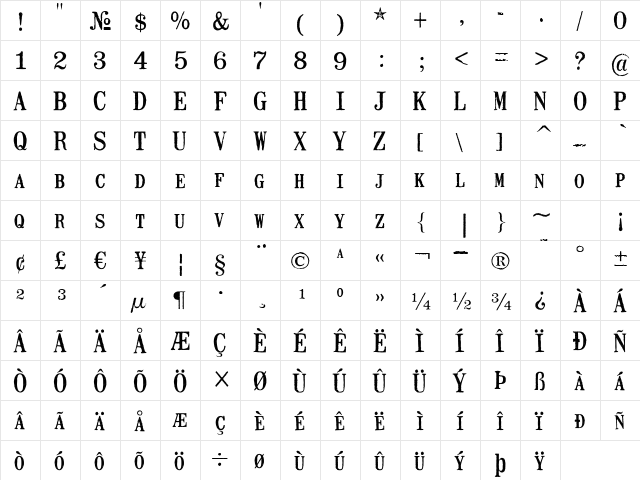
Mailart Rubberstamp Regular
Design Context for Mailart Rubberstamp Typeface
Mailart Rubberstamp has the rough pragmatism of spray-painted stencil signage, adding a raw, street-level authenticity to designs.
Ideal for industrial branding, streetwear, military-adjacent aesthetics, and urban signage projects.
Pro Tip: Pair Mailart Rubberstamp with raw, utilitarian design elements — exposed concrete textures, flat colour, and minimal ornamentation suit it well.